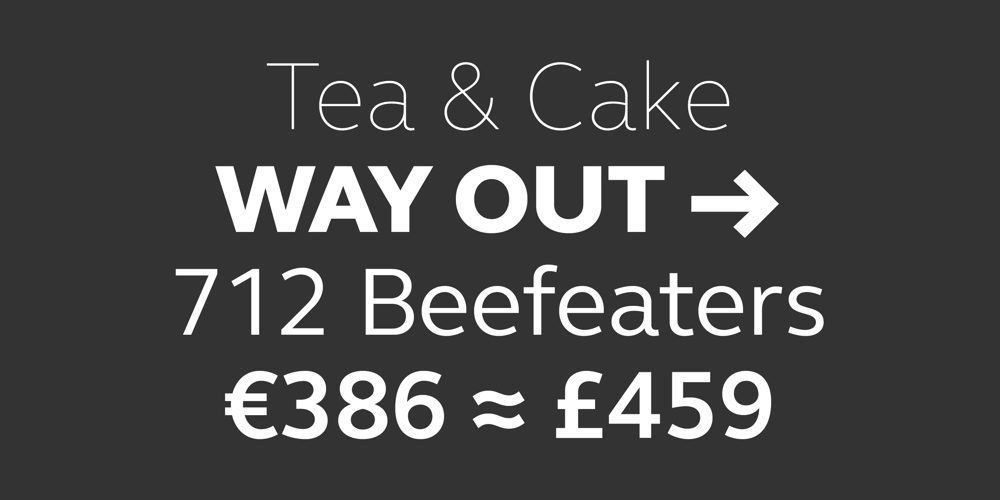
FS Elliot Font Family was designed by Nick Job and published by Fontsmith. FS Elliot contains 10 styles and family package options. RootedRooted in 1960s Brit modernism and infused with a fresh, contemporary spirit, FS Elliot is a future-proof, workhorse sans serif, well-suited to any assignment. Open and harmonious, its clear, fluid shapes lend words a distinctive and optimistic bounce. BritishnessFS Elliot came out of a desire to create something squarely in the British modernist tradition, drawing on influences such as Design Research Unit’s portfolio of type for famous British brands and products, and Margaret Calvert and Jock Kinneir’s work on the British road sign system.Nick Job took the openness and simplicity of that style and injected warmth and wide appeal, coming up with a highly practical, multi-purpose family of faces.Enduring appeal“The great thing about having an eye on the future,” says designer Nick Job, “is that most of it is unknown. It’s what encourages us to take risks. And it leaves an uncertainty which, I believe, gives the best work its enduring appeal.” FS Elliot is available in a Pro version with full language support and a full range of Roman, Cyrillic and Greek weights.